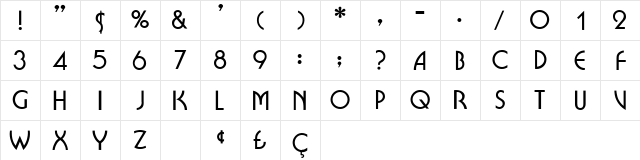
Brioche Display Caps SSi Regular Font Preview
Brioche Display Caps SSi Regular
Design Context for Brioche Display Caps SSi Typeface
Brioche Display Caps SSi brings ornamental detail and strong personality to headlines and identities, where visual impact matters more than quiet functionality.
Font Pairing: Pair with a clean neutral sans-serif for body copy to let Brioche Display Caps SSi's character lead without overwhelming the composition.
Pro Tip: Treat Brioche Display Caps SSi as the centrepiece of your typographic hierarchy. One strong heading set in a decorative face can carry an entire layout.